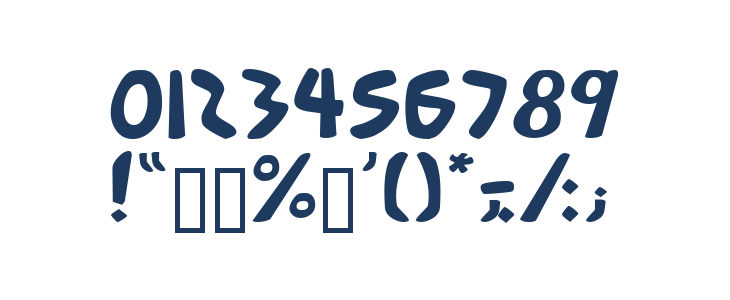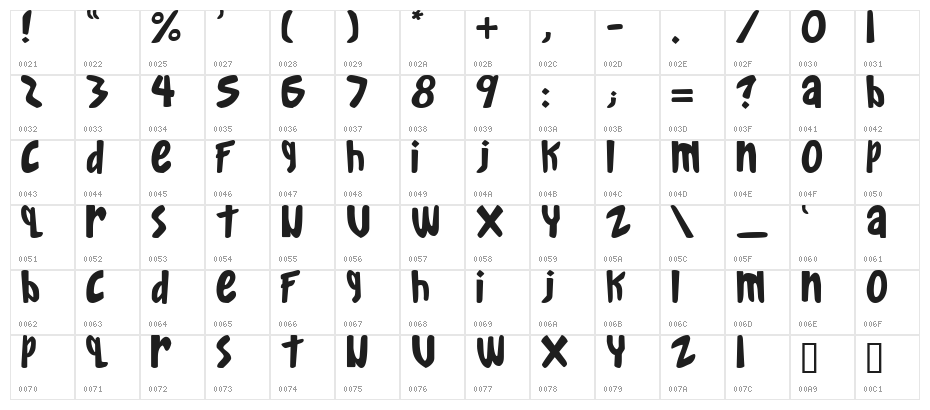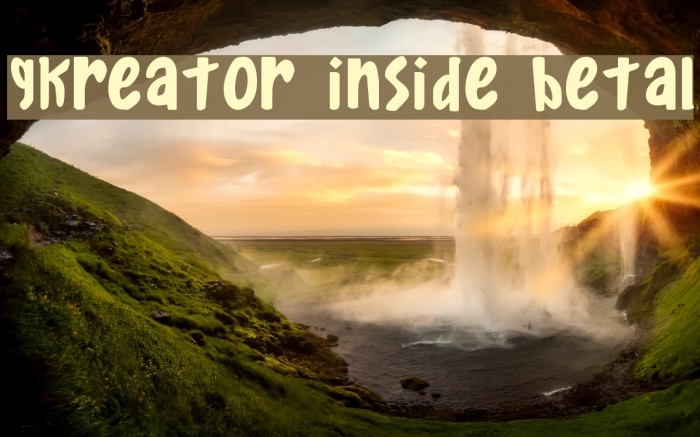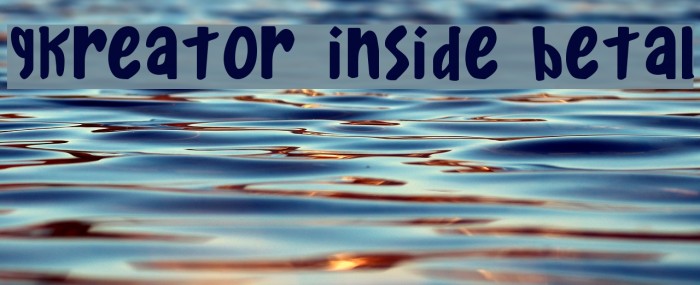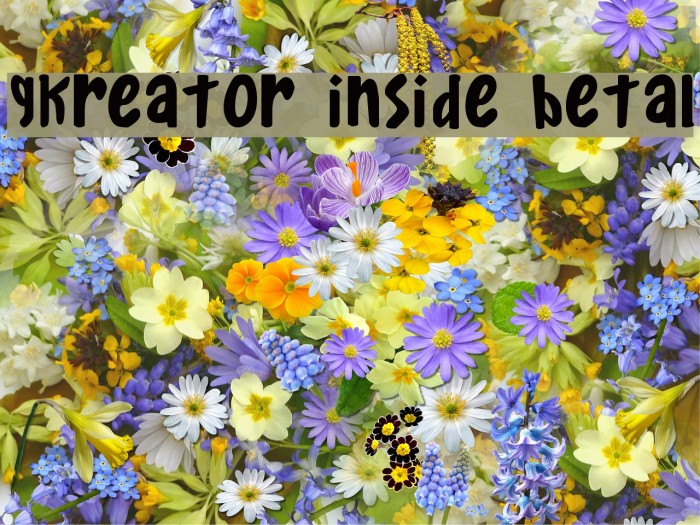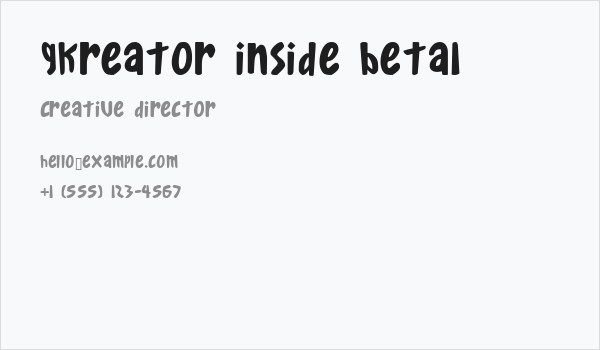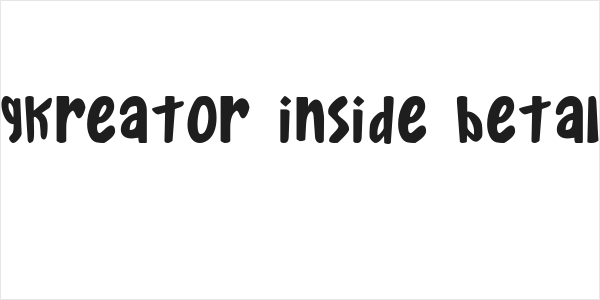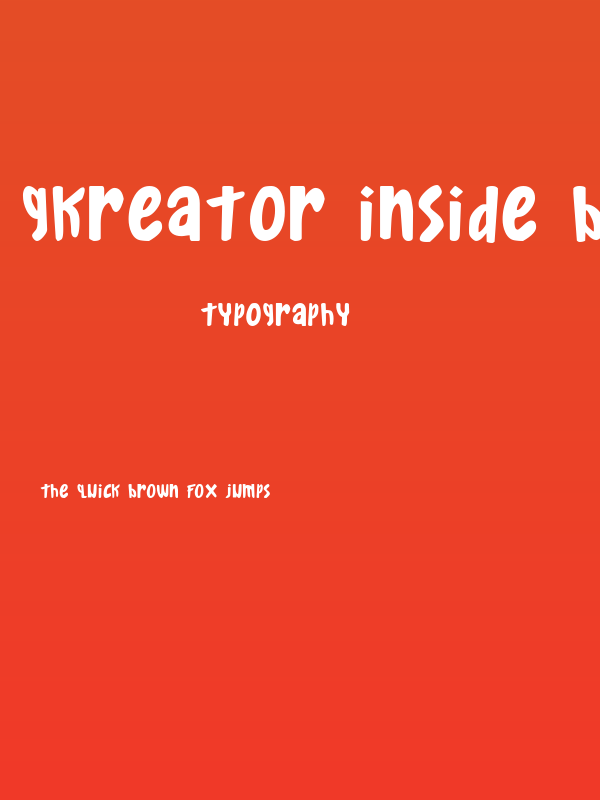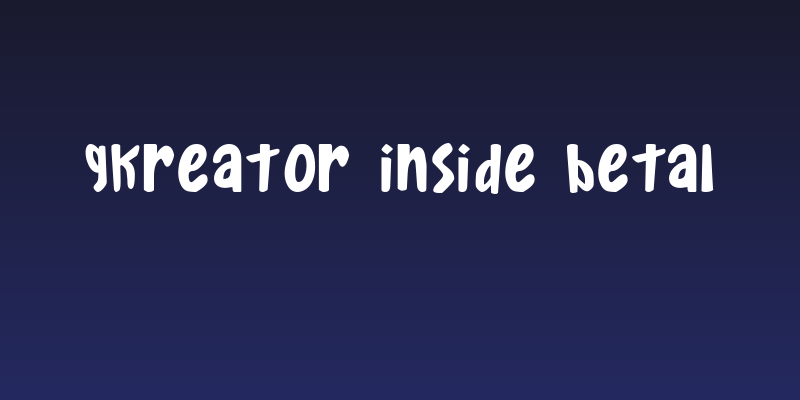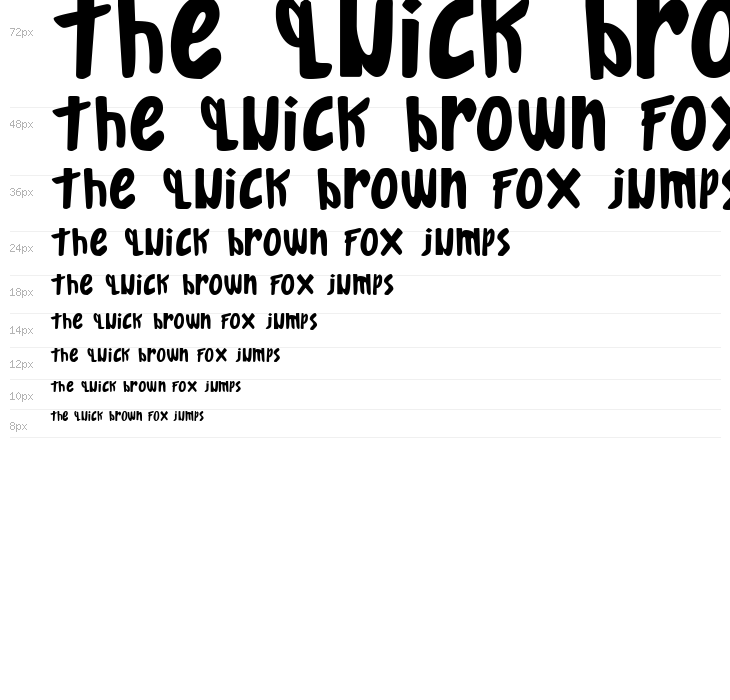
Gkreator Inside Beta1 Font
Gkreator Inside Beta1 Description
This font features a bold and playful design with a handwritten style that exudes a sense of fun and creativity. The characters are thick and rounded, giving them a friendly and approachable appearance. The uppercase and lowercase letters maintain a consistent style, with a slight slant that adds to the casual feel. The numbers and special characters are equally bold, ensuring readability and consistency across all elements. This font is perfect for projects that require a lively and informal touch, such as children's books, posters, or branding for creative businesses.
| Proposed Projects | Ideal for children's books, playful posters, creative branding, and informal invitations. |